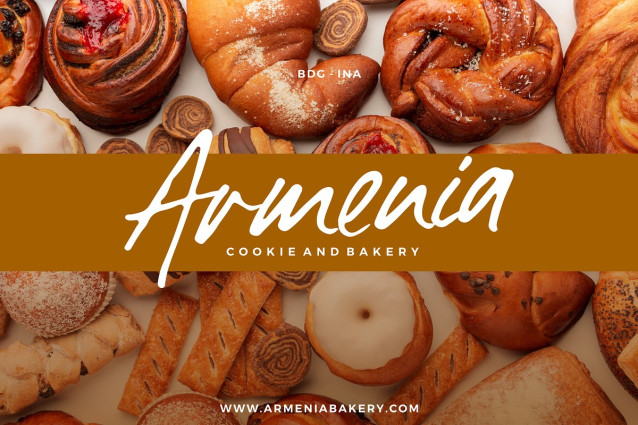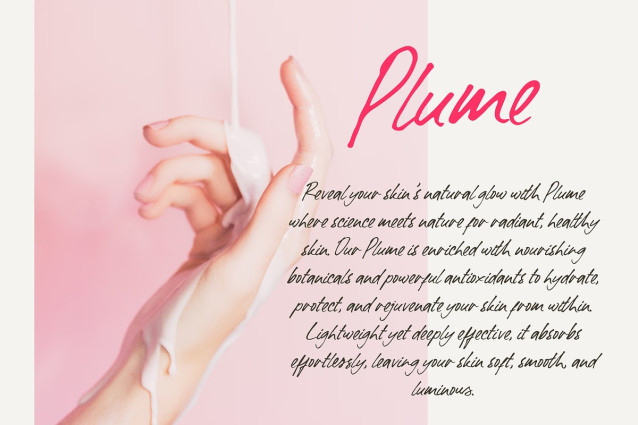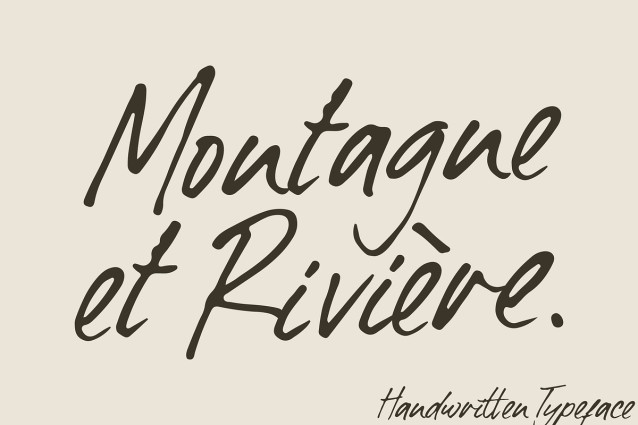
Montagne Et Rivière Font
Montagne et Rivière is a refined handwritten typeface crafted from natural, hand-scanned strokes. With its effortless flow and organic charm, this font brings warmth and authenticity to any design.
Perfect for logos, food & beverage branding, promotional campaigns, video titles, product packaging, quotes, posters, flyers, and stylish text overlays, Montagne et Rivière is a versatile choice for projects that seek a personal, handcrafted touch.